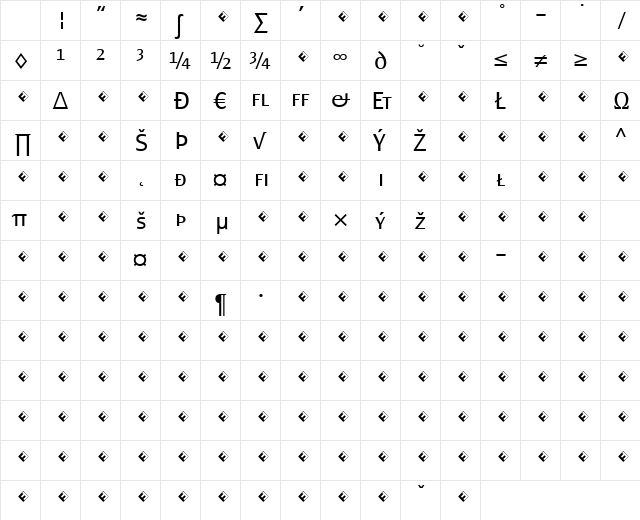
Complete PageSans-LightSCExpert Regular glyph index. Displaying only characters natively supported by PageSans-LightSCExpert Regular font.
PageSans-LightSCExpert is a composed and adaptable typeface that performs quietly and consistently across a wide range of design contexts. Its slender proportions lend an understated elegance to any composition.
Who designed the PageSans-LightSCExpert Regular font?
This font was published by Albert Boton, published by FontShop International for the FontFont Library. Check the technical specs section for copyright and designer details.